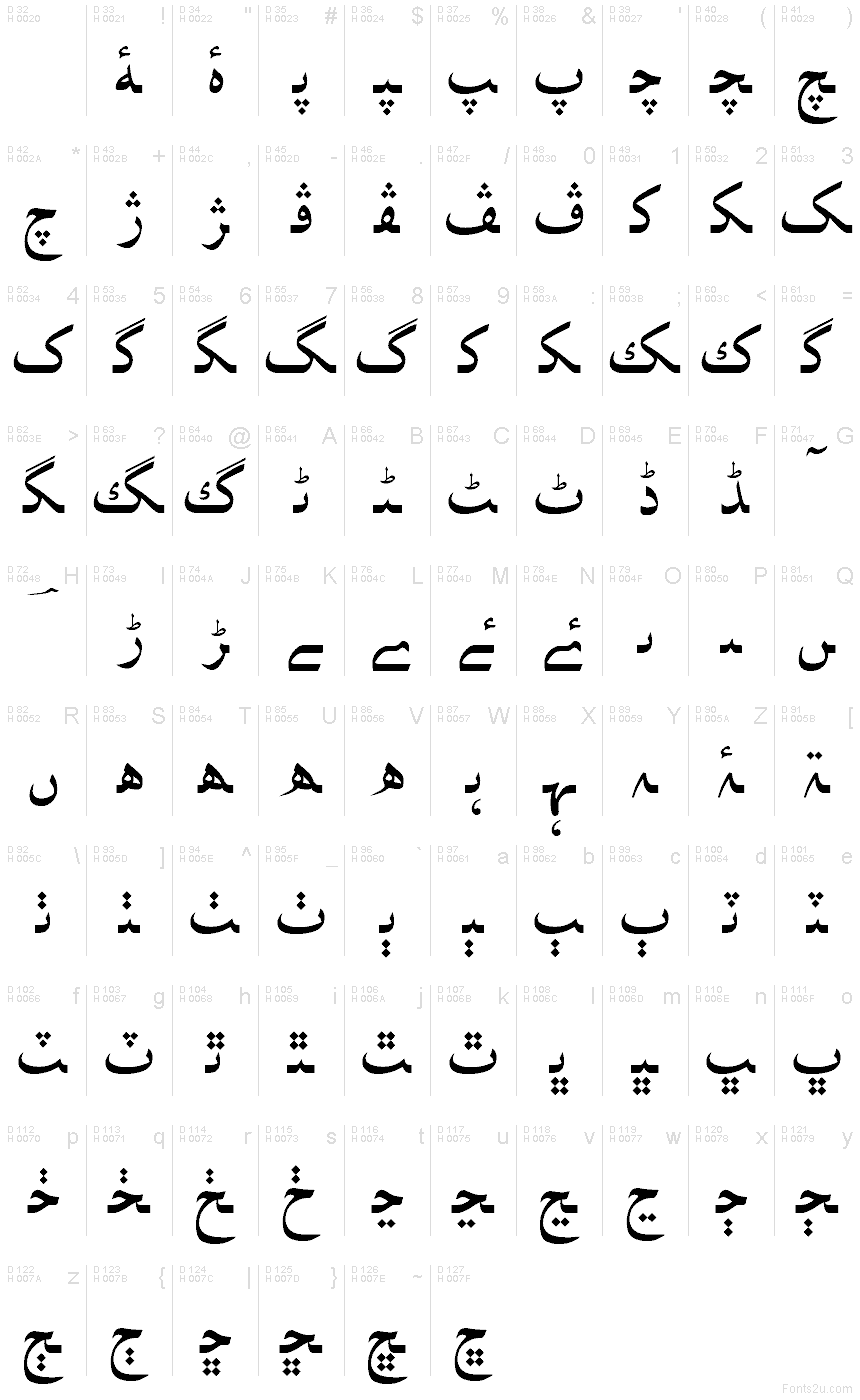
WTCArabicNaskhSSK2 Regular
WTCArabicNaskhSSK2 font, designed by Southern Software, captures the ornateness of Arabic within an elegant and traditional display style. It features calligraphic elements and intricate detailing with cultural richness in every letter. The ornamental strokes blend nicely to give you a font that properly visualizes the elegance of design.
Since this is a free Arabic font with unique personality characteristics, individuals can utilize it in online greeting cards for special occasions including Ramadan and Eid Fitr. It also looks beautiful on titles for book covers especially traditional poems or novels that tackle cultural issues as well as magazine covers, posters, typography artwork, invitations typography, stickers customization among others.